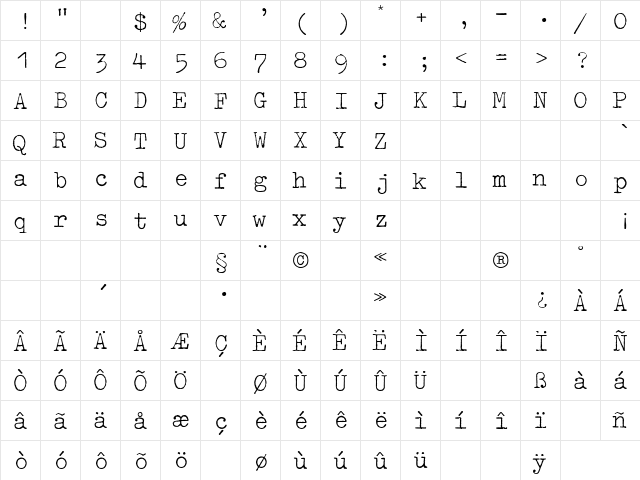
OldTypewriterLight Regular
Design Context for OldTypewriterLight Typeface
OldTypewriterLight uses fixed-width spacing throughout, giving it the structured, systematic character associated with coding environments and technical documentation. The delicate stroke weight brings airiness and refinement to layouts.
A natural fit for code editors, technical documentation, developer-focused branding, and terminal-inspired UI.
Pro Tip: Pair OldTypewriterLight with a proportional sans for UI contexts where code-style labels and regular body copy need to coexist.